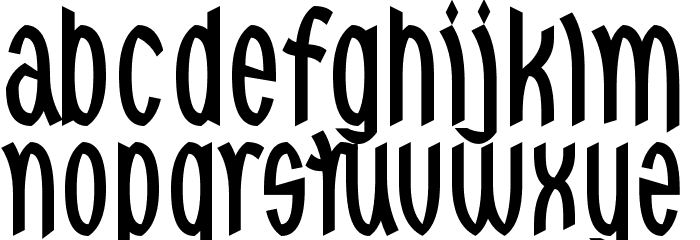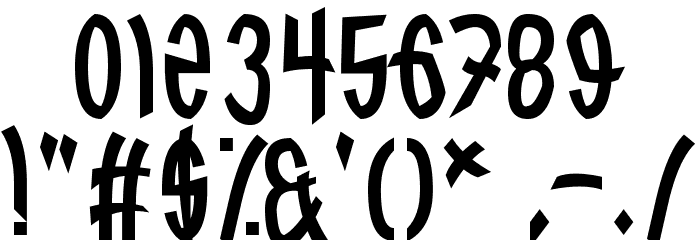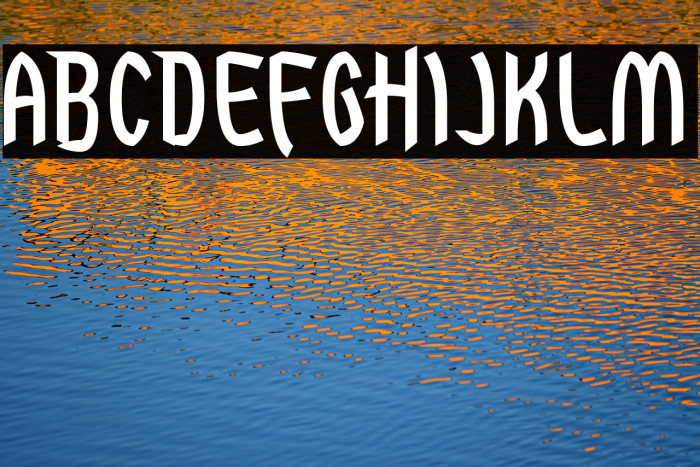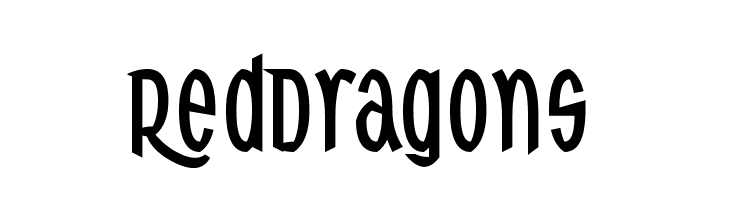
Red Dragons Font
This font features a unique and bold design with a distinctively curved and elongated style. The characters have a playful yet sophisticated appearance, with an emphasis on vertical lines and rounded edges. The uppercase letters are tall and narrow, while the lowercase letters maintain a consistent flow with slightly exaggerated curves. The numbers and special characters follow the same stylistic cues, ensuring a cohesive look across all elements. This font's artistic flair makes it stand out, offering a modern twist on traditional typography.
A bold, curved font with elongated, playful characters.